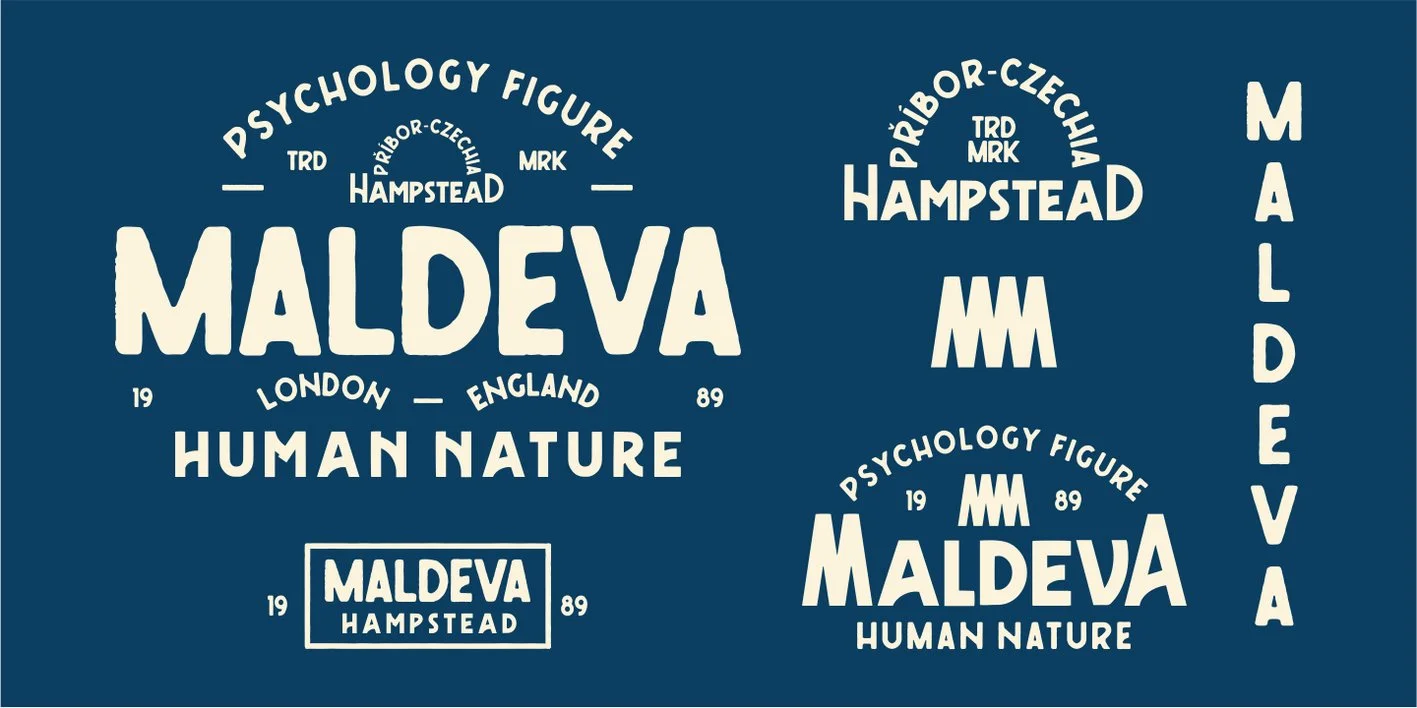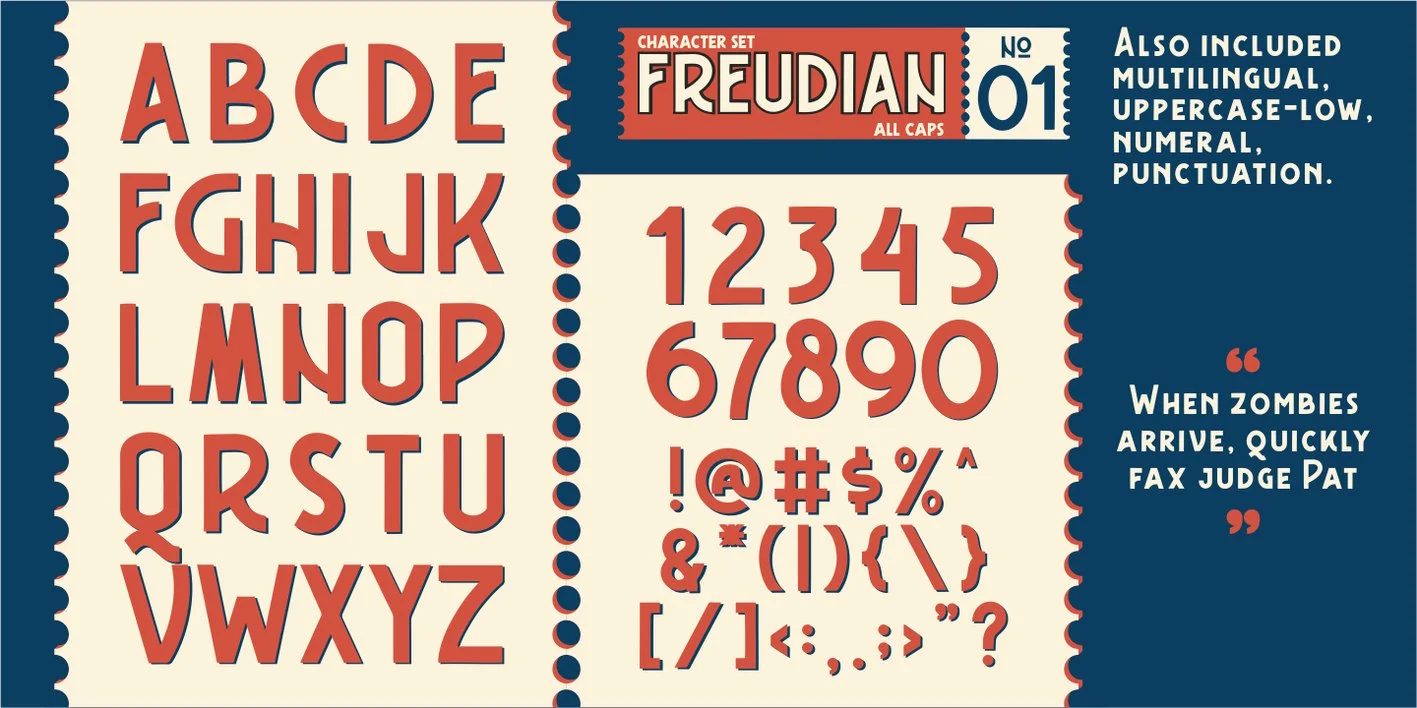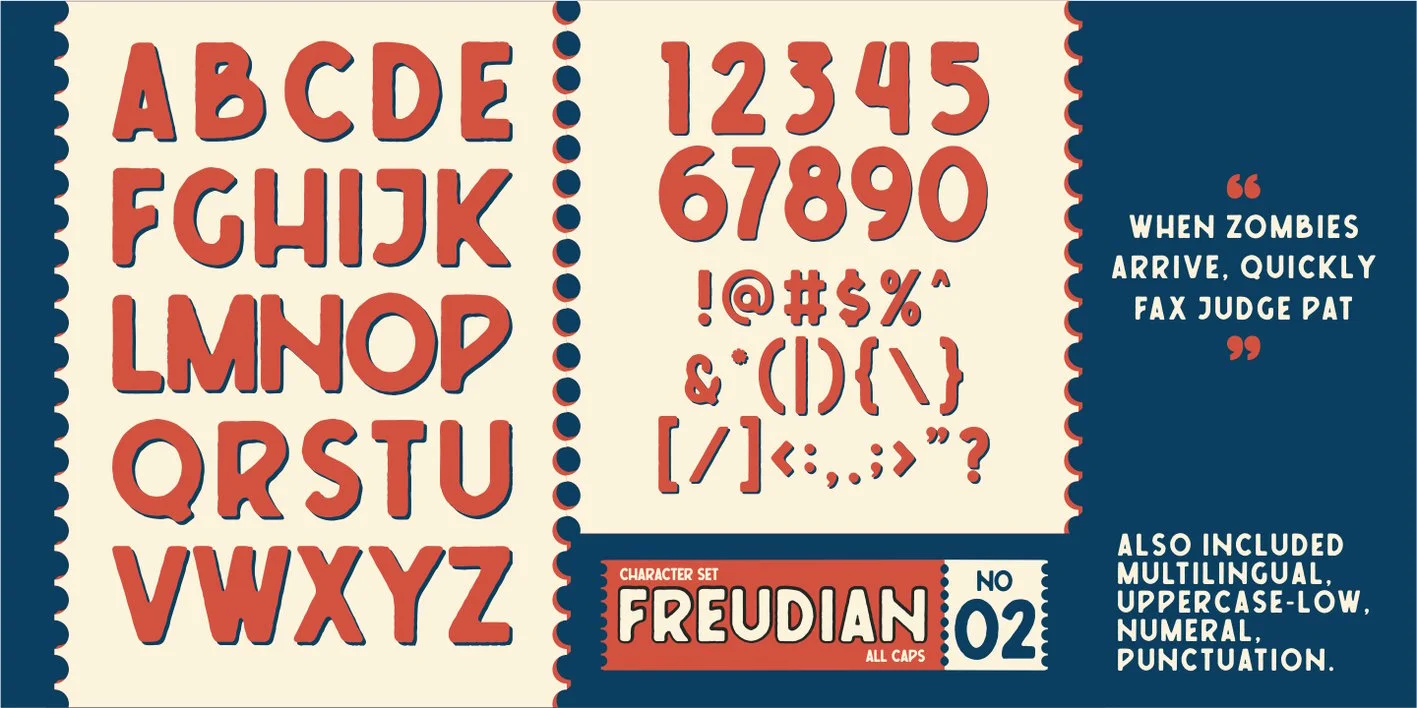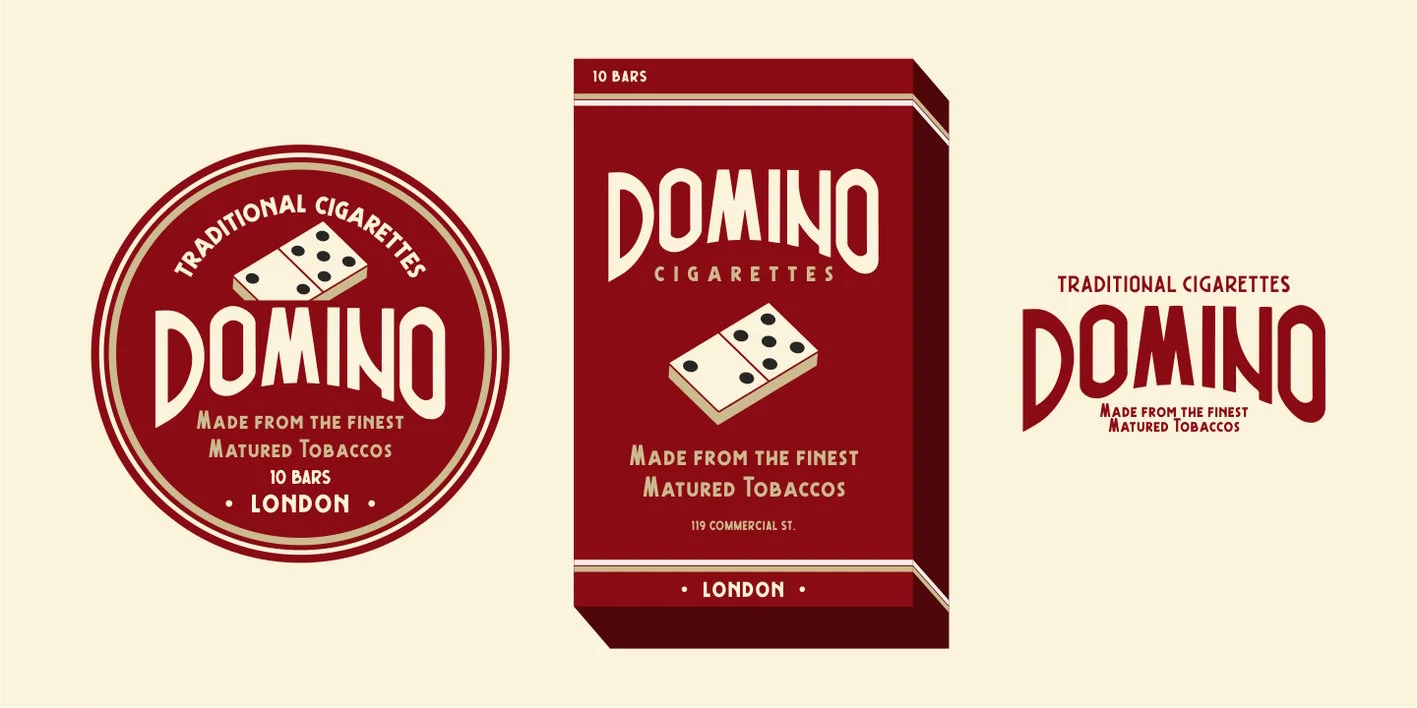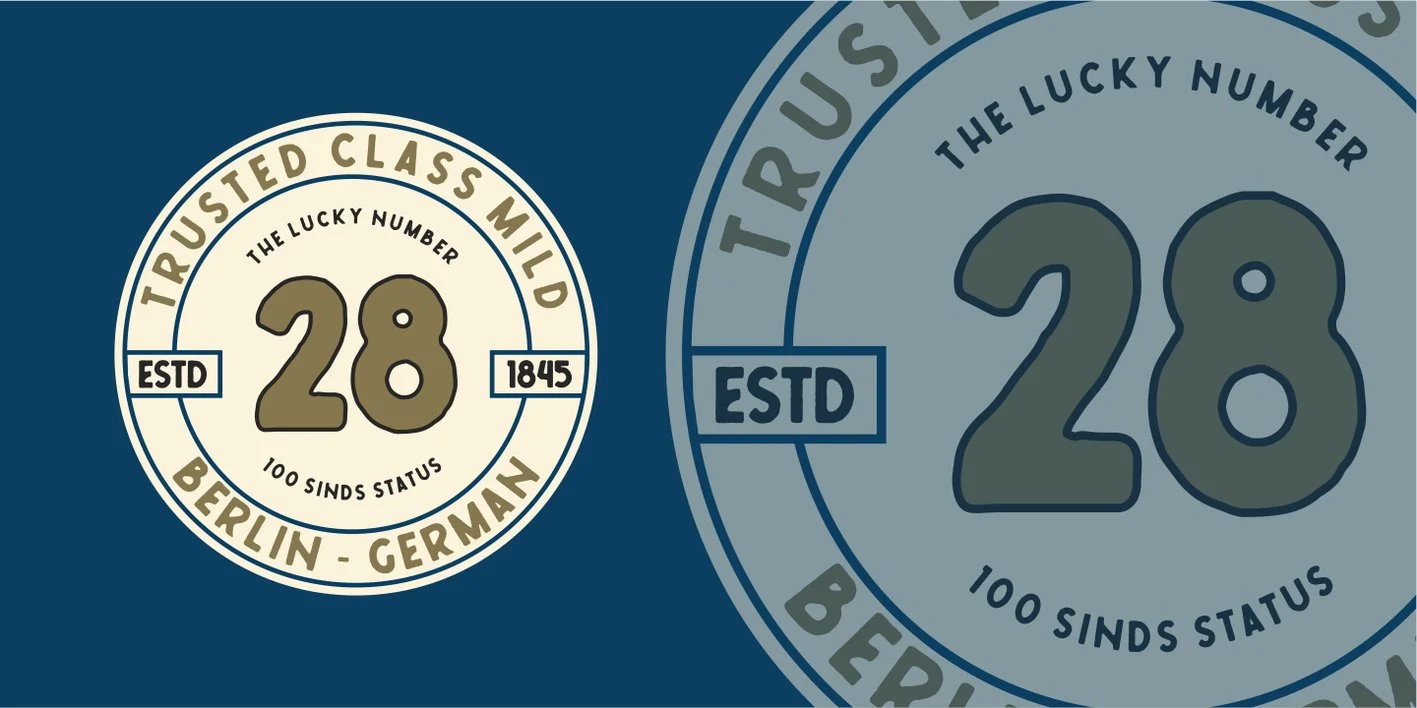
Freudian Font
When a design brief calls for both the kind of restraint that lets content lead and immediate visual impact, type choices matter — Freudian answers that brief. The typeface brings a versatile sensibility to a broad range of creative disciplines, with distinctive character without sacrificing readability that holds up whether the work is print-first or screen-first.
In practice, Freudian proves particularly effective for brand identity systems, annual reports, advertising campaigns, logo design, editorial layouts. Designers reaching for it find that the type decisions feel resolved rather than laboured — a useful quality when client timelines are tight.
The range of applications extends to packaging design, environmental graphics, signage systems, poster creation. That breadth is deliberate: the proportions and spacing were stress-tested across a wide range of mock briefs before the typeface was finalised.
At smaller sizes the design retains its character without becoming cluttered. This resilience across scales makes Freudian equally suitable for a business card and a billboard — a useful property when assets must scale across a campaign.
In-house creative teams at consumer brands find Freudian a reliable choice for projects that demand both personality and restraint. The design avoids the self-conscious quirkiness that dates quickly, settling instead for considered distinctiveness that holds up over time.